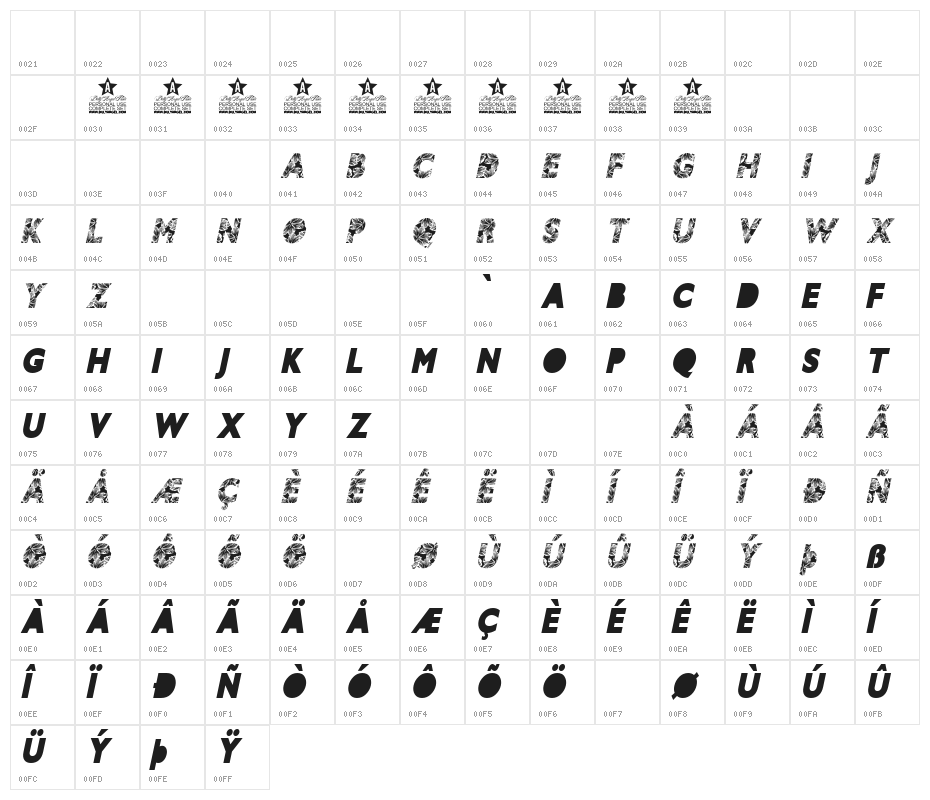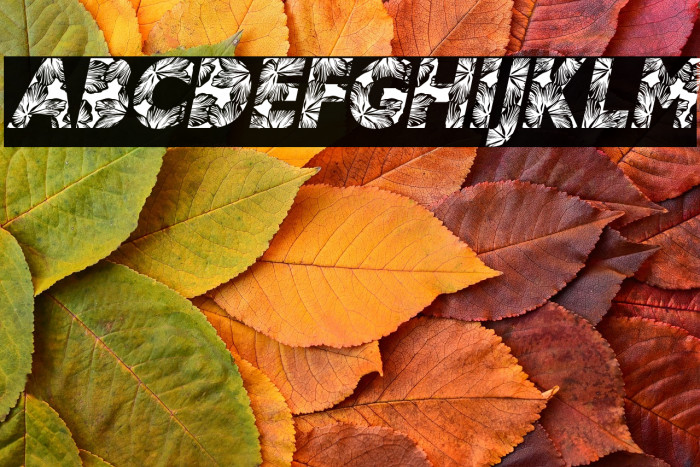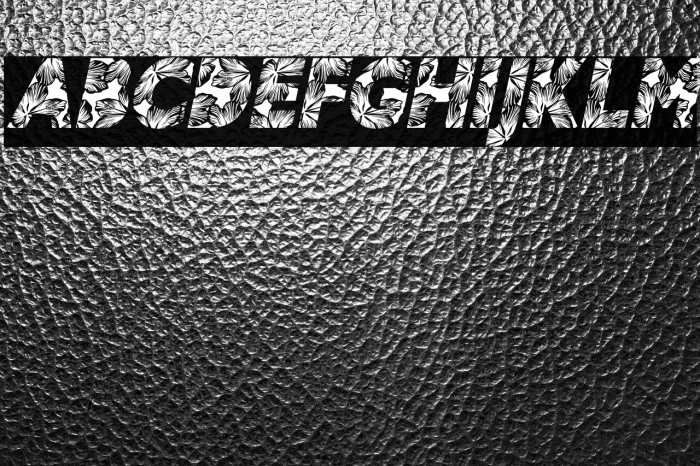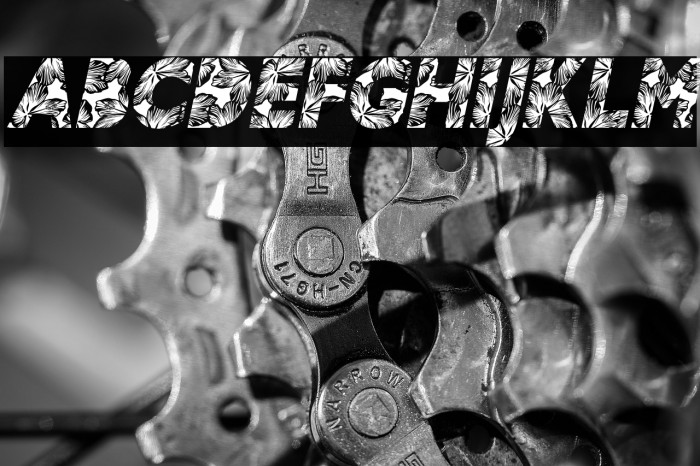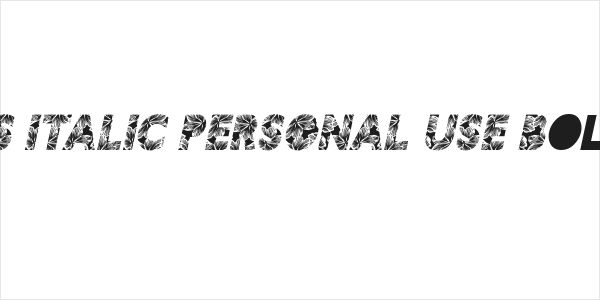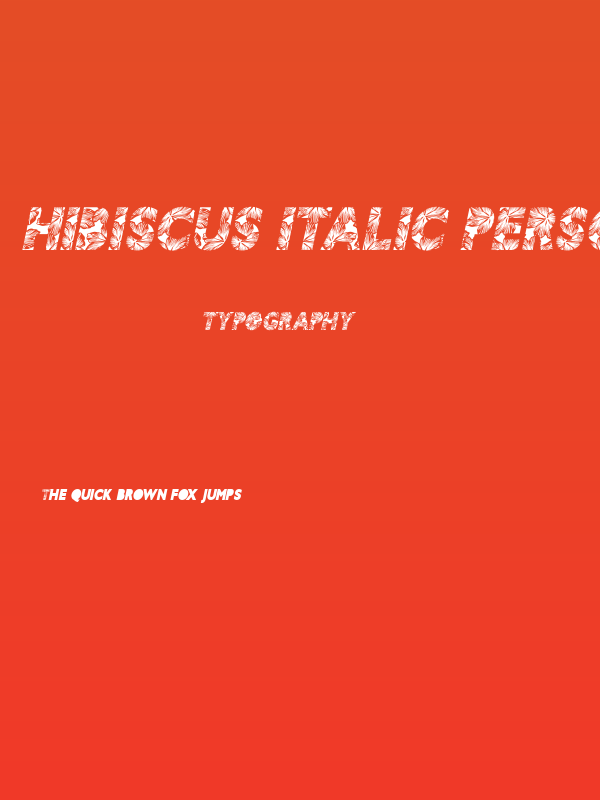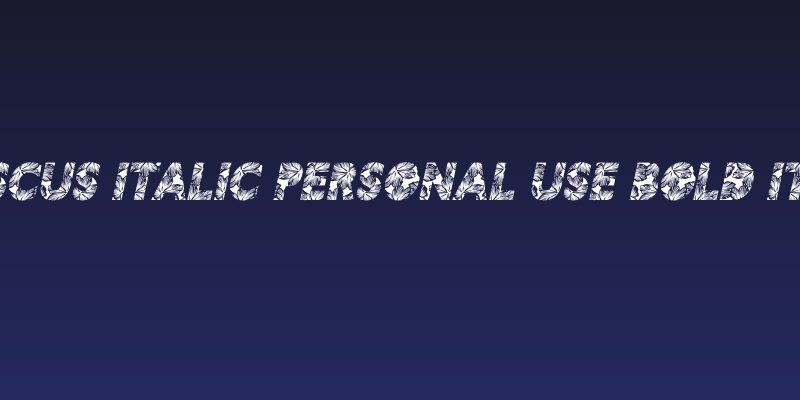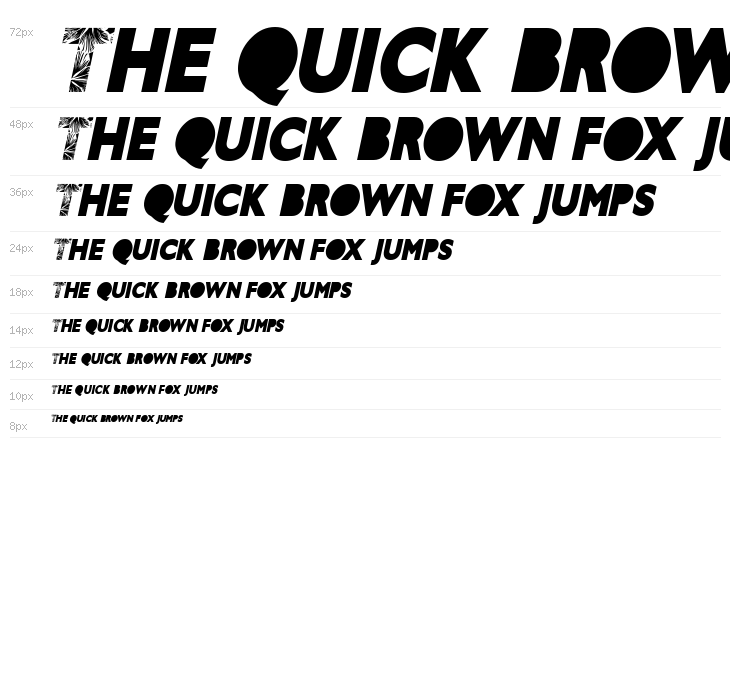
HIBISCUS ITALIC PERSONAL USE Bold Italic Font
HIBISCUS ITALIC PERSONAL USE Bold Italic Description
This font features a bold and italicized style with a decorative flair. The uppercase letters are adorned with intricate floral patterns, adding a unique and artistic touch. The bold weight ensures strong visibility, making it suitable for eye-catching designs. The italic slant gives it a dynamic and modern feel, while the decorative elements provide a vintage charm. The font is ideal for creative projects that require a standout appearance, such as posters, invitations, or branding materials.
| Use Case | Headlines, Logos, Decorative text |
| Proposed Projects | Ideal for posters, invitations, branding, and any project needing a decorative and bold typeface. |